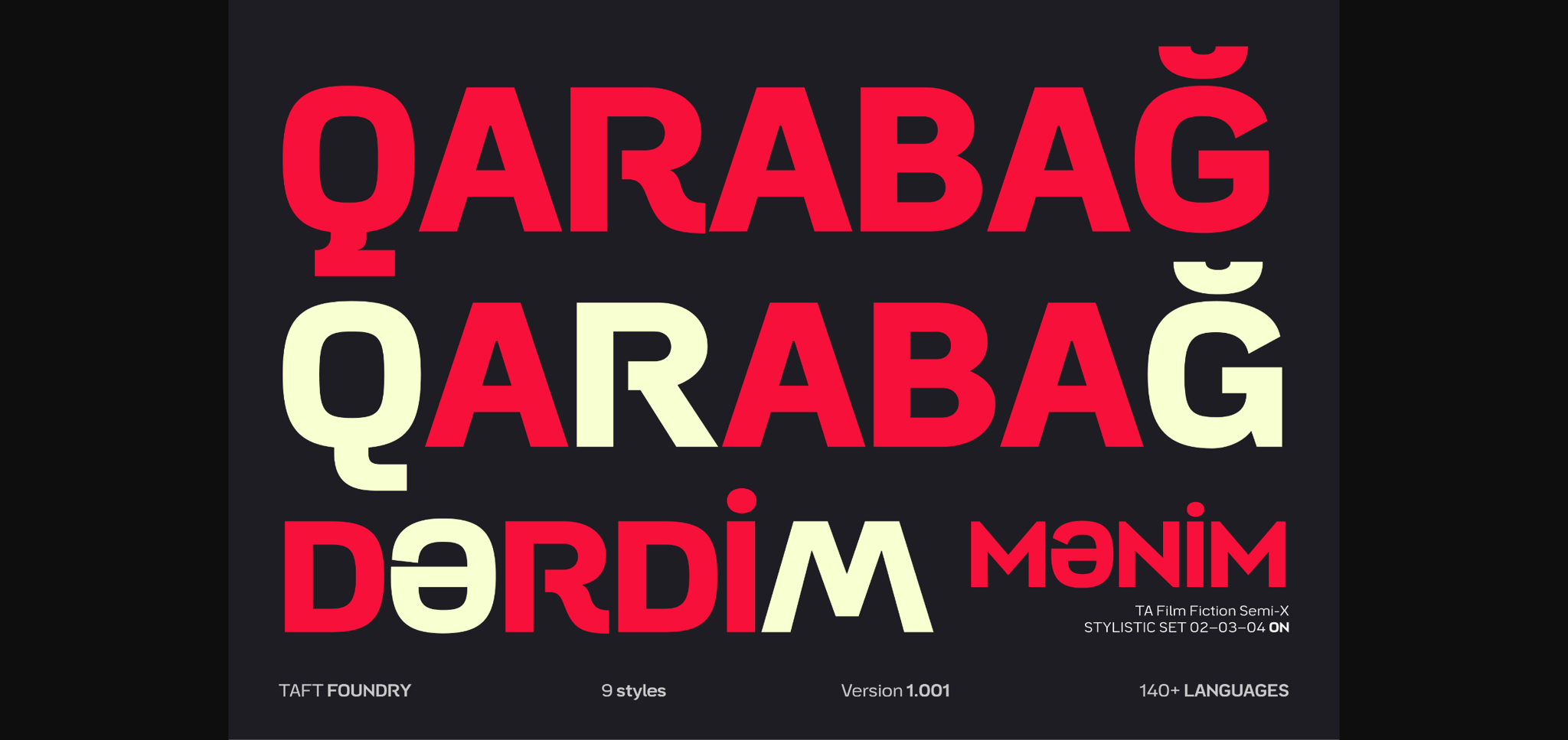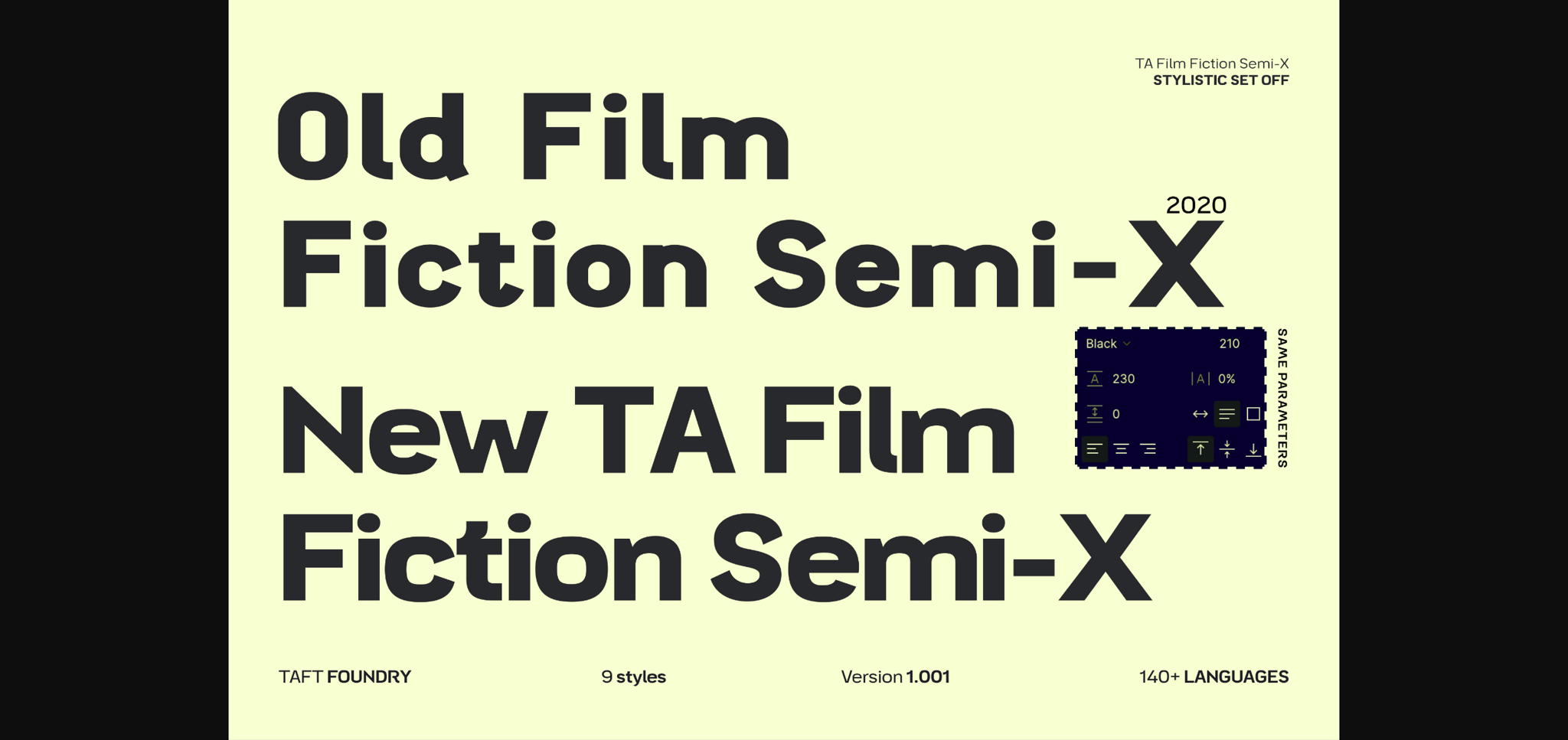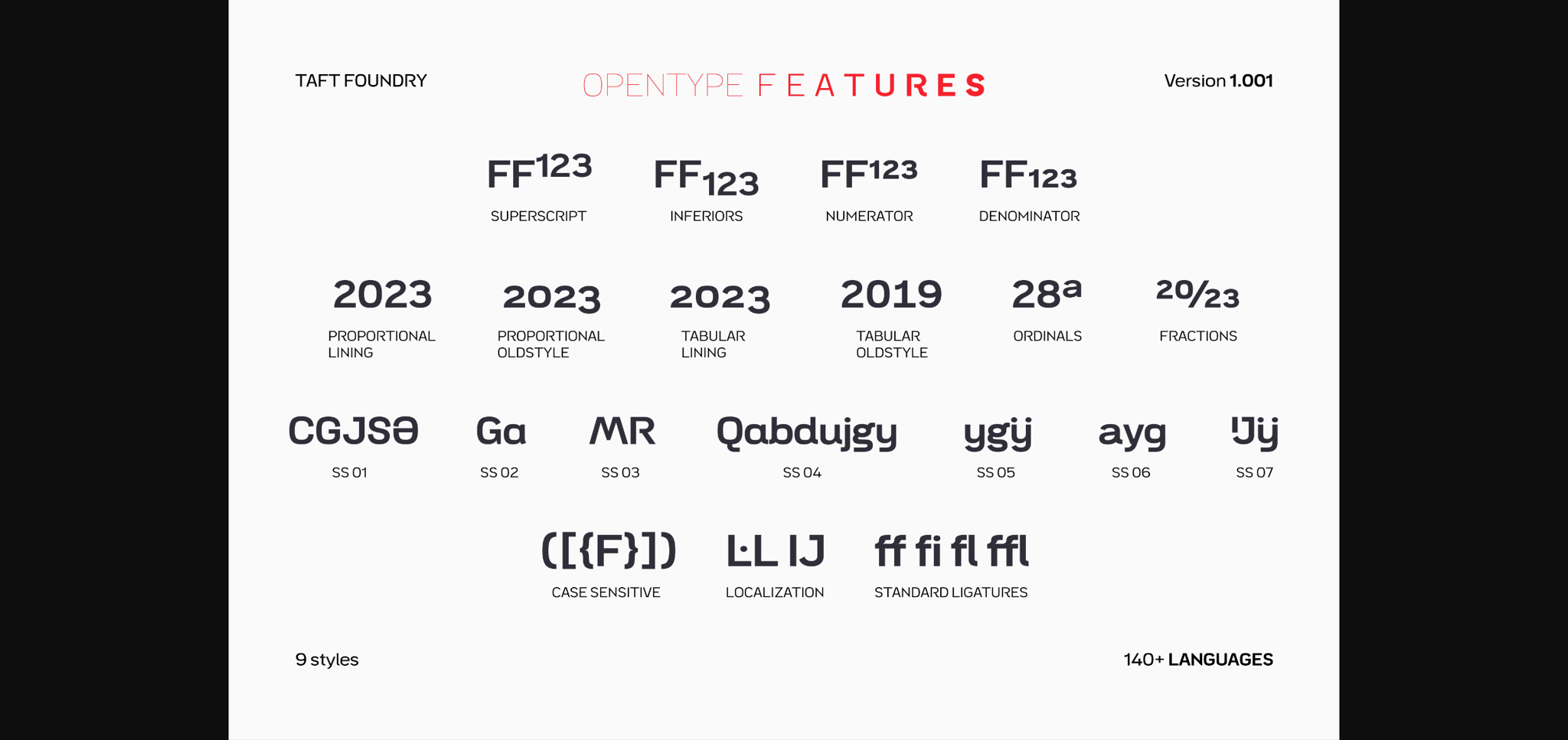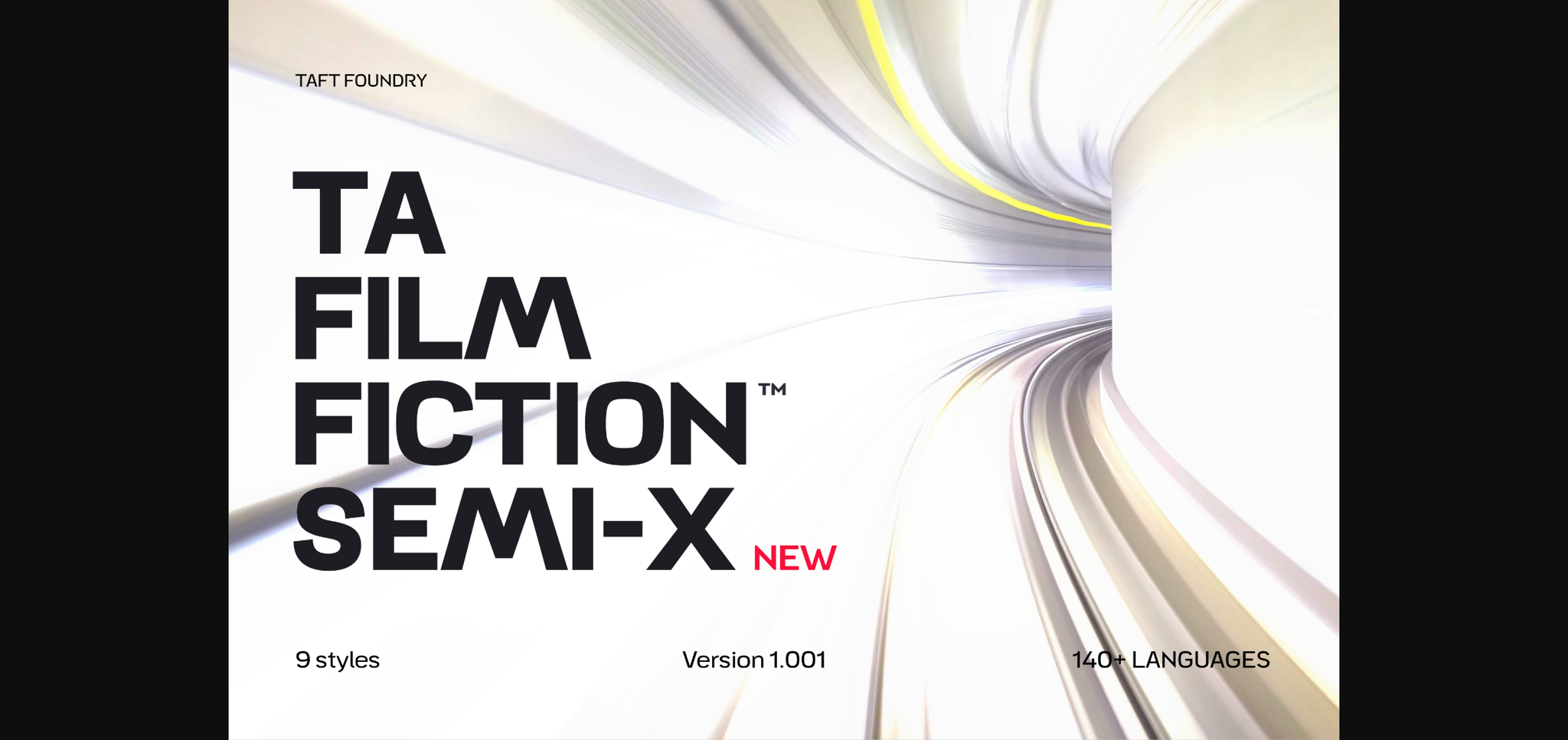
About Ta Film Fiction Semi-x Font
Film Fiction Semi Expanded has been updated and will now beautify your designs under the name TA Film Fiction Semi-X. We’ve already updated and revitalized TA Film Fiction Semi-X to ensure it perfectly matches your evolving creative vision. The inclusion of tabular figures, old-style figures, and alternative glyphs expands your design palette and allows you to adapt the font to your unique style.
TA Film Fiction Semi-X has been updated to experience the appeal – this can be your font of choice to enhance your brand identity, cinematic efforts, and editorial design.
This brilliant typeface is not just a typographic tool, but a creative catalyst for headlines, logos, web elements, signage, posters, and fashion apparel, packaging. TA Film Fiction Semi-X does not follow trends, it defines them, imbuing each project with a true modern essence.
TA Film Fiction Semi-X has been updated to experience the appeal – this can be your font of choice to enhance your brand identity, cinematic efforts, and editorial design.
This brilliant typeface is not just a typographic tool, but a creative catalyst for headlines, logos, web elements, signage, posters, and fashion apparel, packaging. TA Film Fiction Semi-X does not follow trends, it defines them, imbuing each project with a true modern essence.